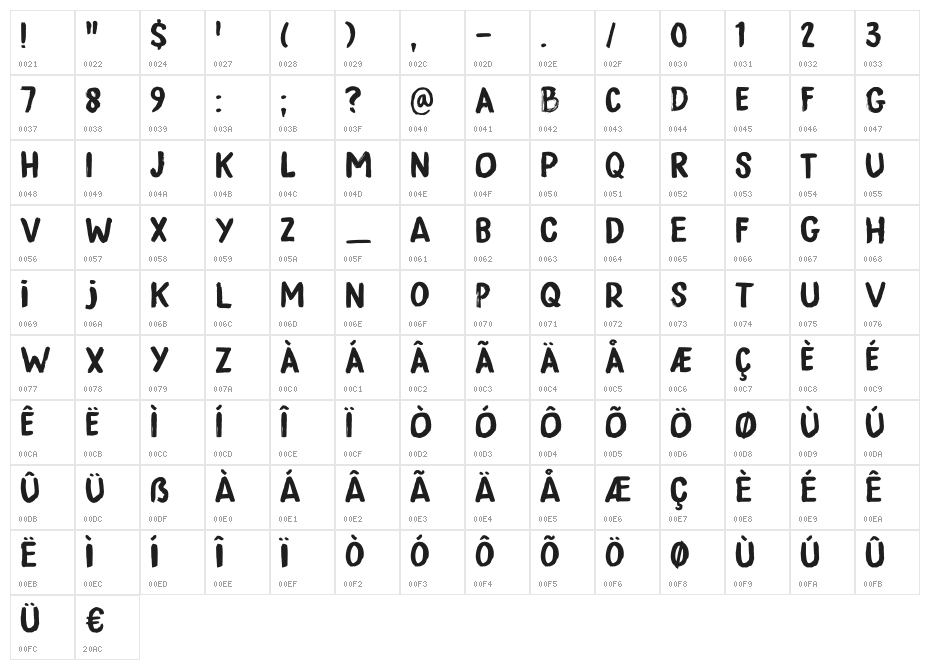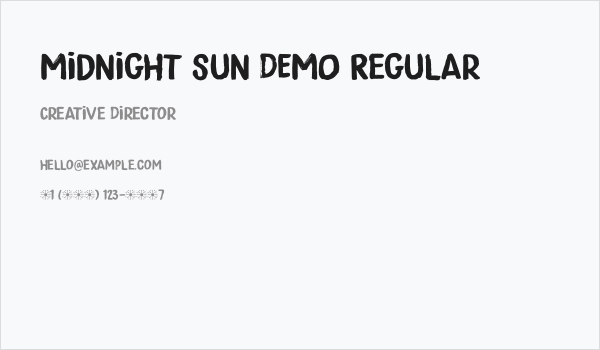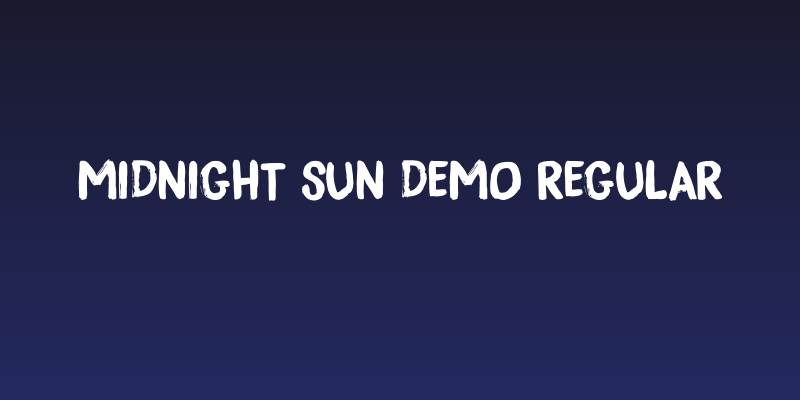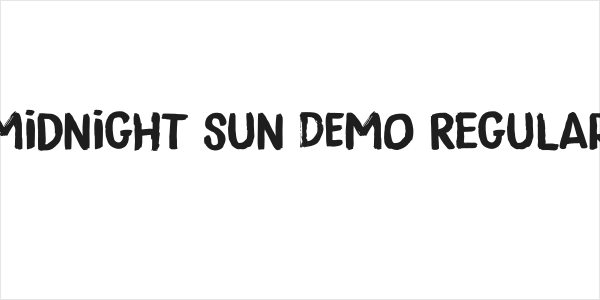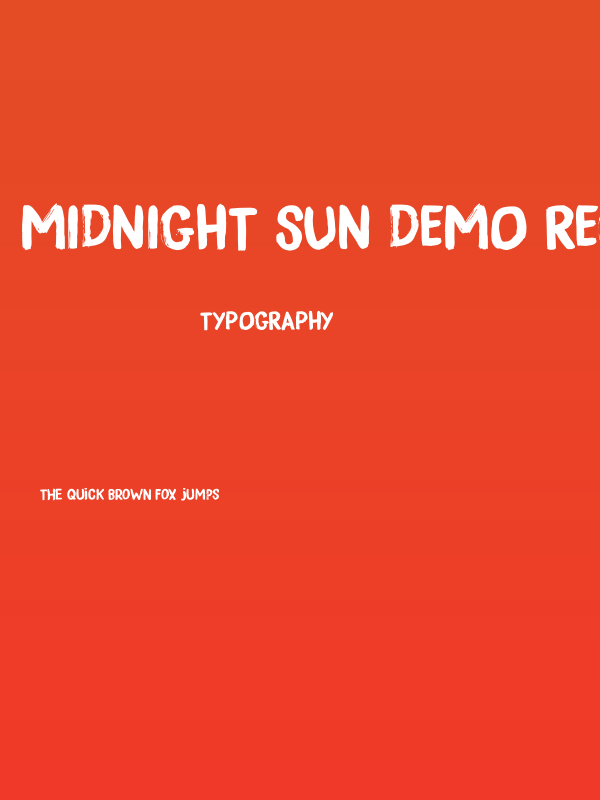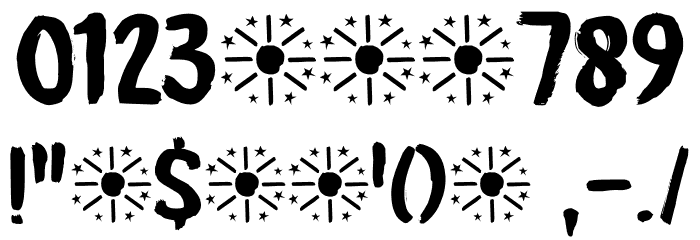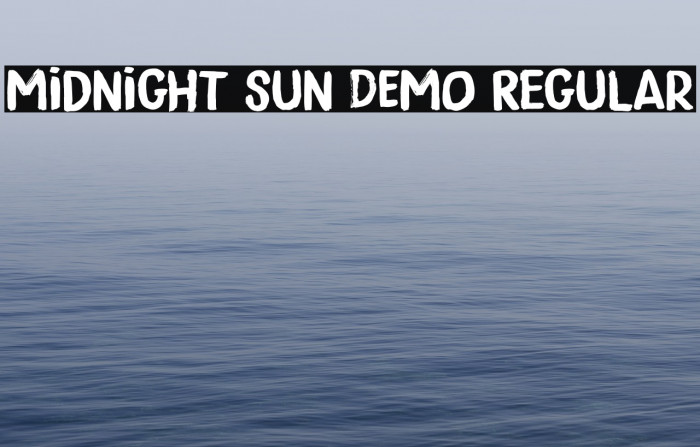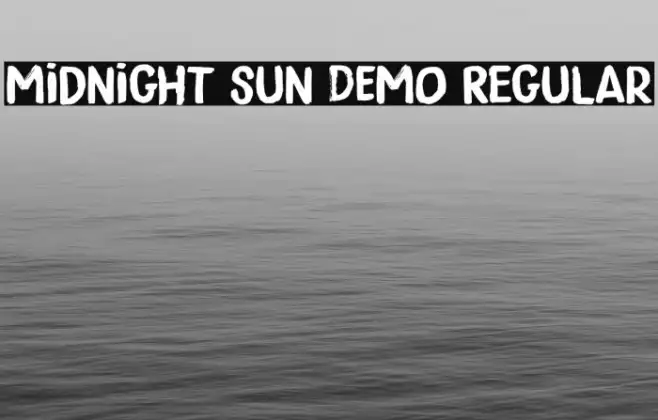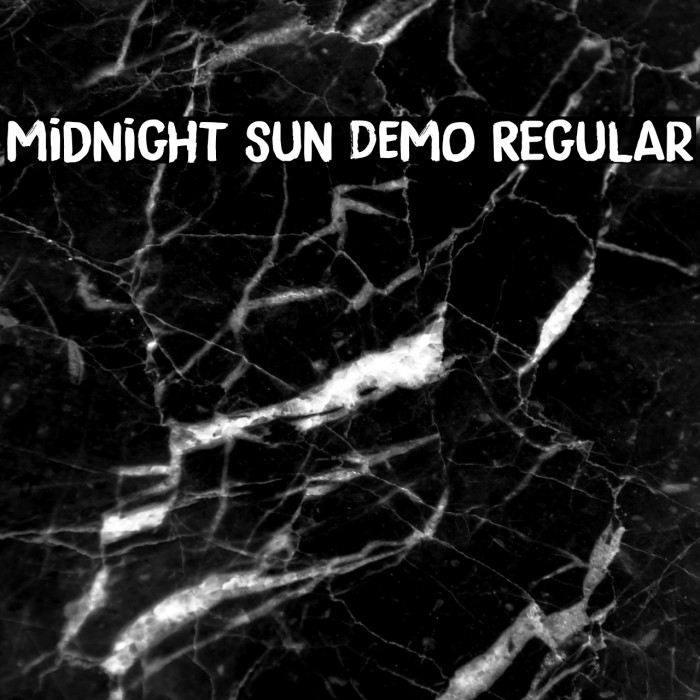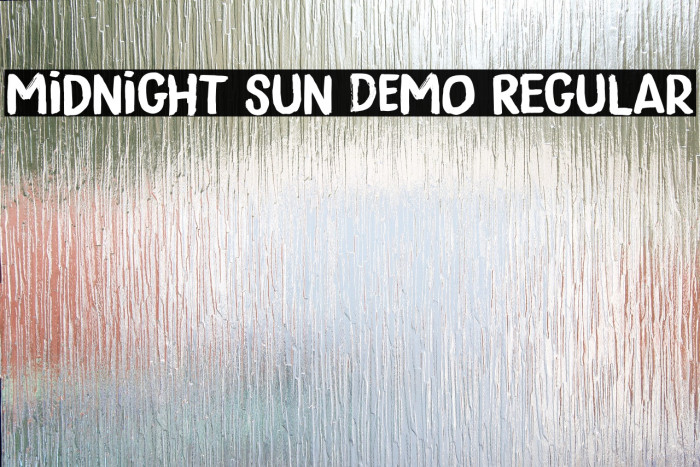
Midnight Sun DEMO Regular Font
Midnight Sun DEMO Regular Description
This font features a bold and expressive brush style, characterized by its thick strokes and uneven edges, giving it a hand-painted appearance. The uppercase and lowercase letters maintain a consistent weight, with a slightly rugged texture that adds a dynamic and energetic feel. The numerals and special characters follow the same artistic style, ensuring a cohesive look across all glyphs. This font's unique design makes it stand out, ideal for creative projects that require a touch of personality and flair.
| Proposed Projects | Ideal for posters, branding, packaging, and any creative projects that require a bold, artistic touch. |